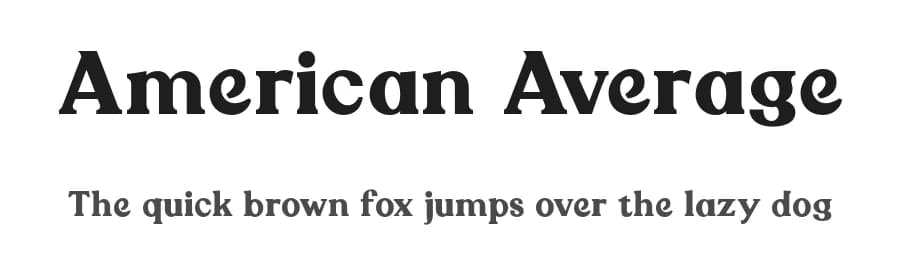
About American Average Font
American Average is a slick and modern serif font.
is a stylish font. It has a modern and retro look. Comes with alternatives and binders, helps create stunning logos, quotes, posts, blog posts, branding projects, magazine imagery, wedding invitations, social media, prints, stickers, shirts and much more
There are lots of fun style alternatives available to use with this font. These letters are embedded into the font file and are easily accessible in programs such as photoshop and illustrator.
American Average ships with 7 OpenType features you can switch on in apps that support them (Illustrator, InDesign, Affinity, Figma, CSS font-feature-settings).
American Average Font is a versatile serif font that works for both headings and body text. Pair it with a contrasting sans-serif or slab serif font to add visual interest and a clear distinction between titles and body copy.
American Average Font